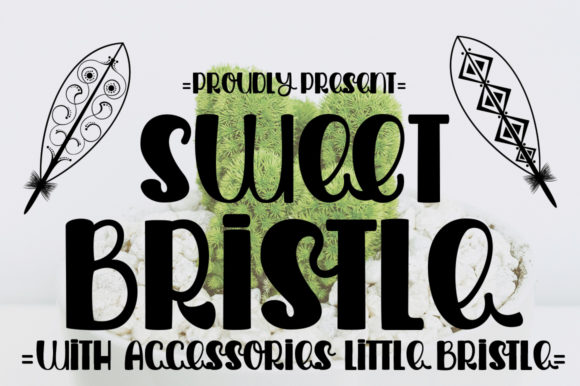
Introducing Sweet Bristle, the font that will ignite your creativity and bring your words to life like never before. This display font, crafted by the talented edwar.sp111, boasts a captivating charm that's perfect for adding a touch of playfulness and personality to any project.
With its enchanting curves and dynamic lines, Sweet Bristle gracefully dances across the page, captivating the eyes and captivating the imagination. Its unique character is reminiscent of a whimsical comic book, inviting you to unleash your inner storyteller and craft tales that transport readers to extraordinary worlds.
Beyond its captivating aesthetics, Sweet Bristle is a remarkably versatile font, effortlessly adapting to a wide range of design endeavors. Whether you're creating posters, logos, invitations, or social media graphics, Sweet Bristle seamlessly blends with your vision, adding a touch of magic to every creation.
But what truly sets Sweet Bristle apart is its treasure trove of gorgeous extras. These delightful embellishments, including eye-catching swashes, charming ornaments, and stunning flourishes, elevate your designs to new heights. With Sweet Bristle, you have the power to transform ordinary words into captivating masterpieces, leaving your audience spellbound.
So, embark on a journey of creativity with Sweet Bristle, the font that fuels your imagination and captivates your audience. Let your words dance with delight, your stories unfold with enchantment, and your designs radiate with individuality. Unleash the boundless possibilities of Sweet Bristle today and witness the transformation of your creative endeavors.